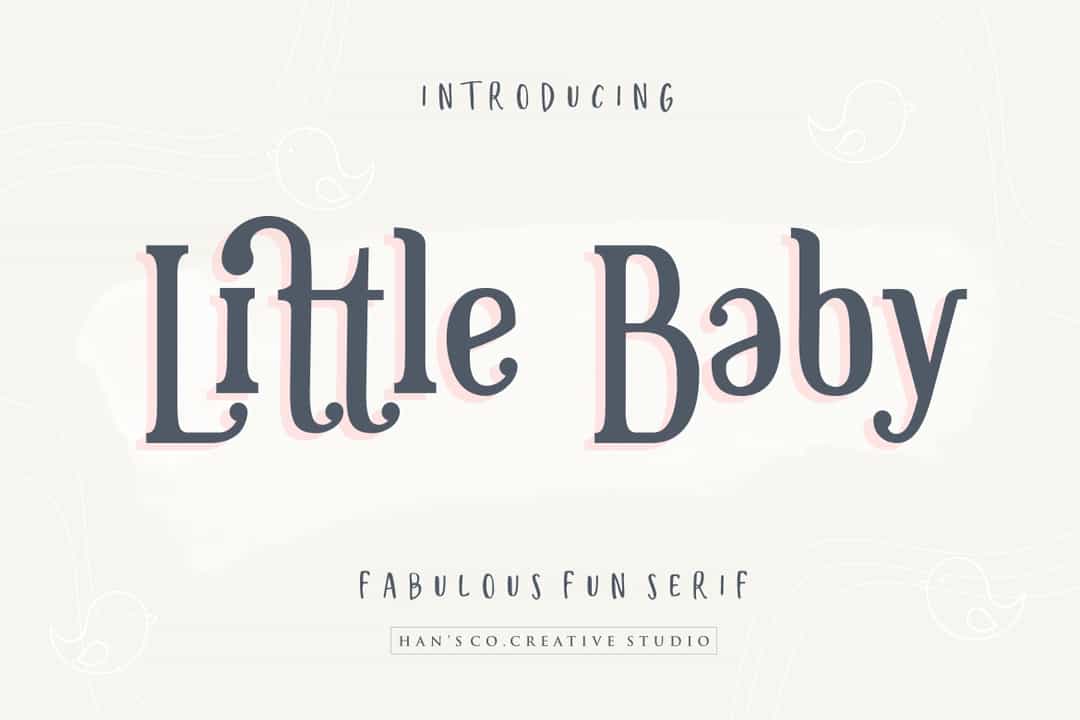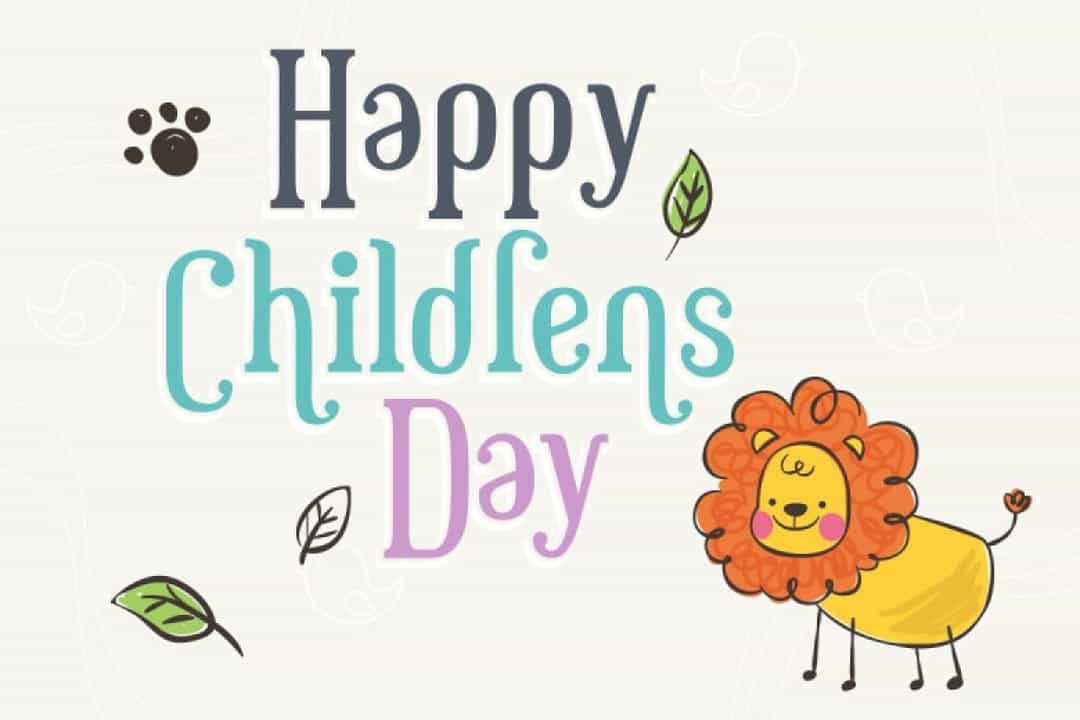
Little Baby Font
Little Baby is a playful serif font that has equally spaced stems on the x-axis and has a lot of helpful options! Including all the upper and lower case alphabets together with the basic ligatures. Multilingual languages support is also incorporated into this font to make it suitable for use in invitations, cards, labels, quotes, logos, and many more.